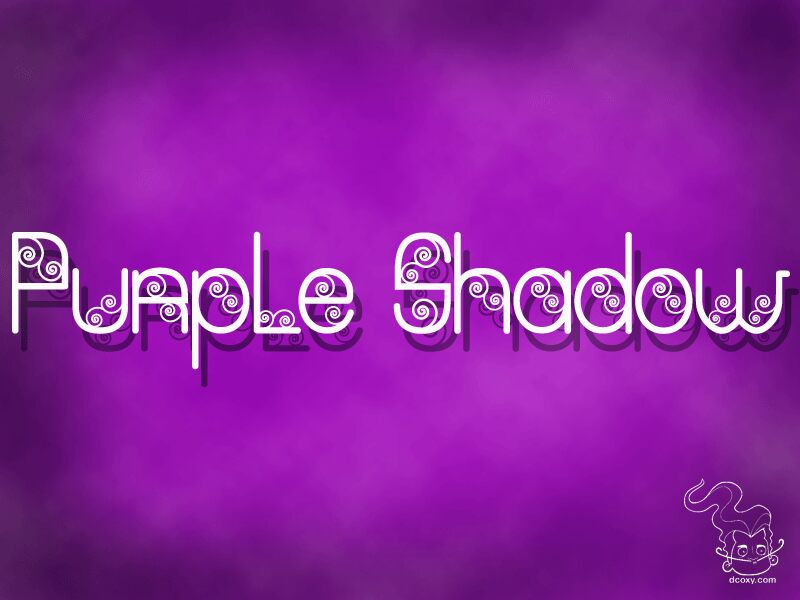
Purple shadow
"Purple Shadow" is a captivating display font created by the talented duo, dcoxy Medina Gregory. Adorned with whimsical swirls and a delicate shadow effect, this decorative typeface exudes a sense of elegance and sophistication. The distinctive letterforms, with their playful curves and stylized flourishes, lend an air of playfulness and charm. This font excels in attention-grabbing applications, such as headlines, logos, and event branding, where it can effortlessly elevate the visual impact.
Its versatility allows it to seamlessly transition from formal to informal settings, making it a versatile choice for a wide range of design projects.